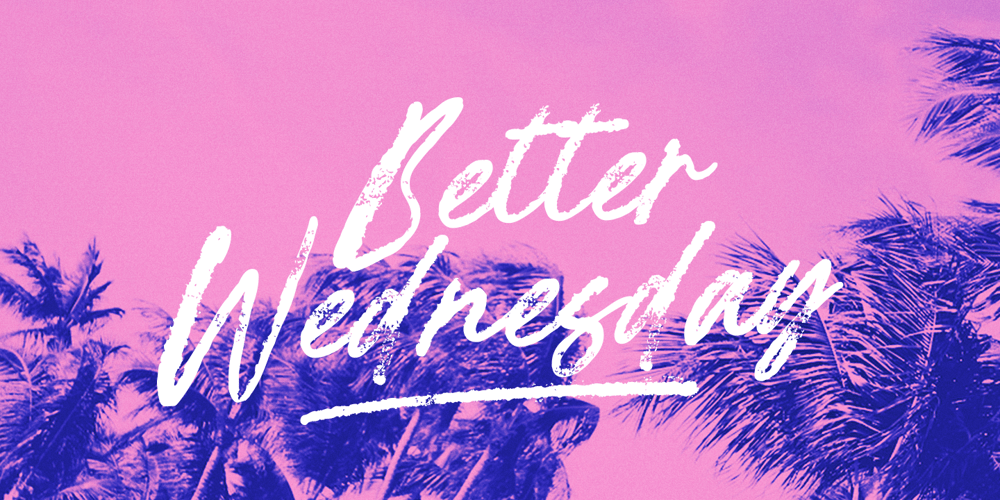
Better Wednesday
Better Wednesday font
Better Wednesday Font Family was designed by Hendry Juanda and published by Letterhend. Better Wednesday contains 1 styles and family package options. Better Wednesday is a handwritten script with brush textured. This type of font perfectly made to be applied such as invitations, labels, logos, magazines, books, greeting / wedding cards, packaging, fashion, make up, stationery, novels, labels or any type of advertising purposeFeatures :- Uppercase & lowercase- Numbers and punctuation- Alternates & Ligatures – Multilingual- PUA encoded